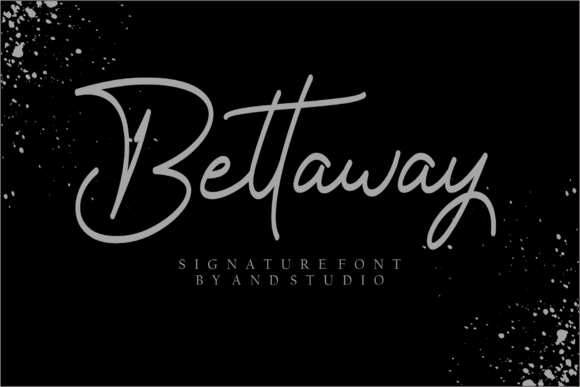
Journey into the world of sophisticated beauty with Bettaway, the script font crafted to leave a lasting impression. Inspired by elegance and artistry, Bettaway's curves and strokes dance across your designs, exuding luxury and grace. Whether you're crafting a high-end fashion brand, marketing materials for a luxurious hotel, or creating high-quality product packaging, Bettaway is your perfect companion.
Bettaway's design mirrors a handwritten signature, its thin lines and sweeping curves flowing together to convey a sense of fluidity and movement. Each letter is a testament to the font's elegance, with delicate details that elevate your designs to new heights. Experience the magic of Bettaway, where sophistication and class intertwine to create a truly captivating visual experience.
With Bettaway, you hold the key to unlocking a world of creative possibilities. Envision your designs adorned with Bettaway's graceful lines, capturing the attention of your audience and leaving them in awe. Your high-end fashion brand will exude luxury, your hotel marketing materials will radiate elegance, and your product packaging will leave an unforgettable impression.
Indulge in the beauty of Bettaway and elevate your designs to new heights. Your quest for sophistication ends here, as Bettaway transforms your creations into masterpieces that captivate and inspire. Step into the realm of luxury and elegance, where Bettaway reigns supreme.